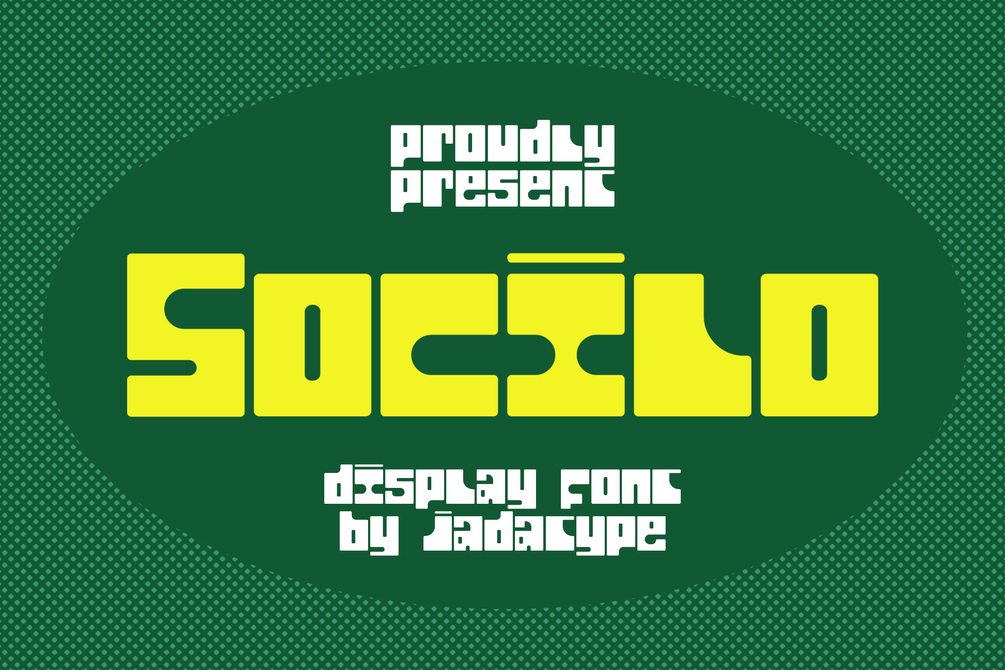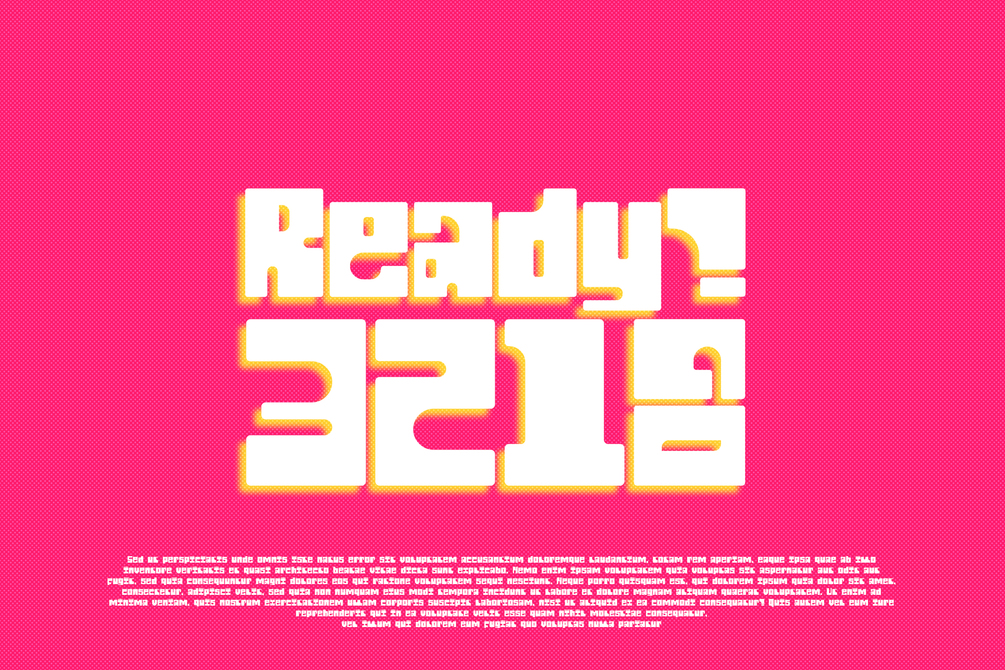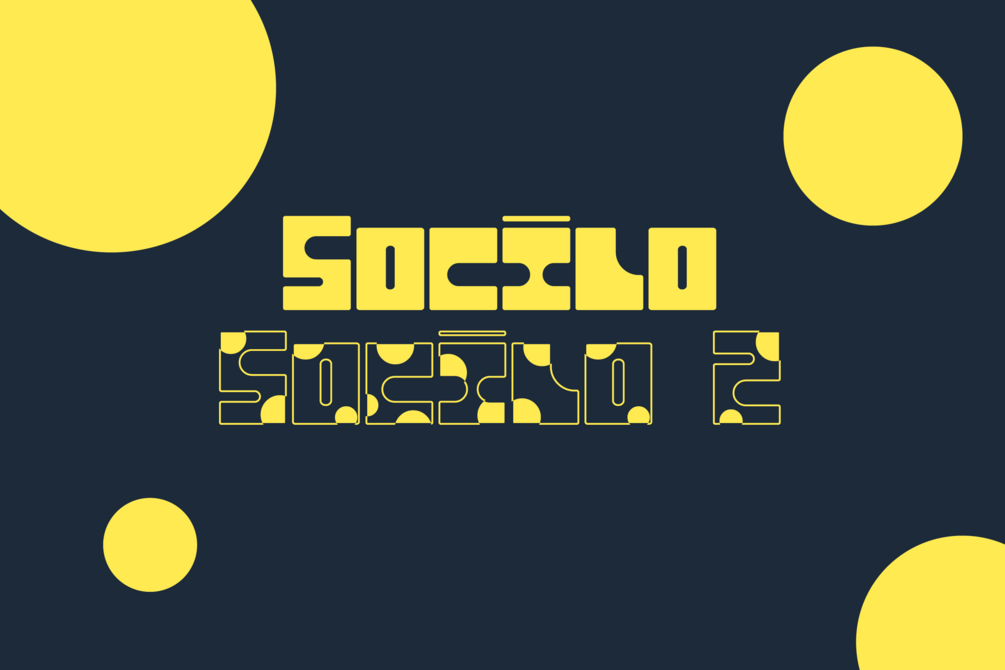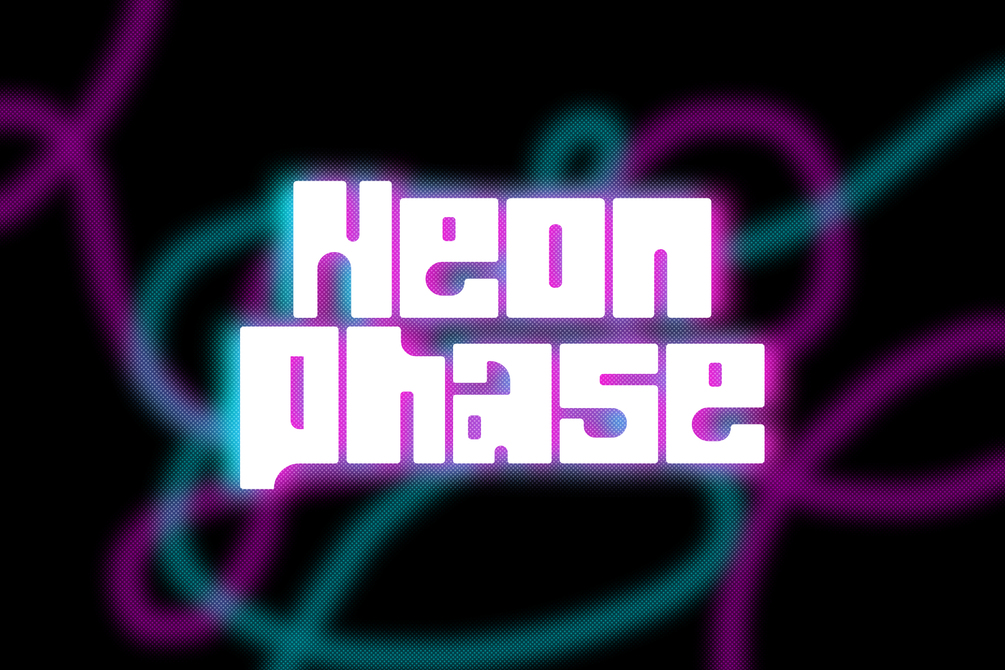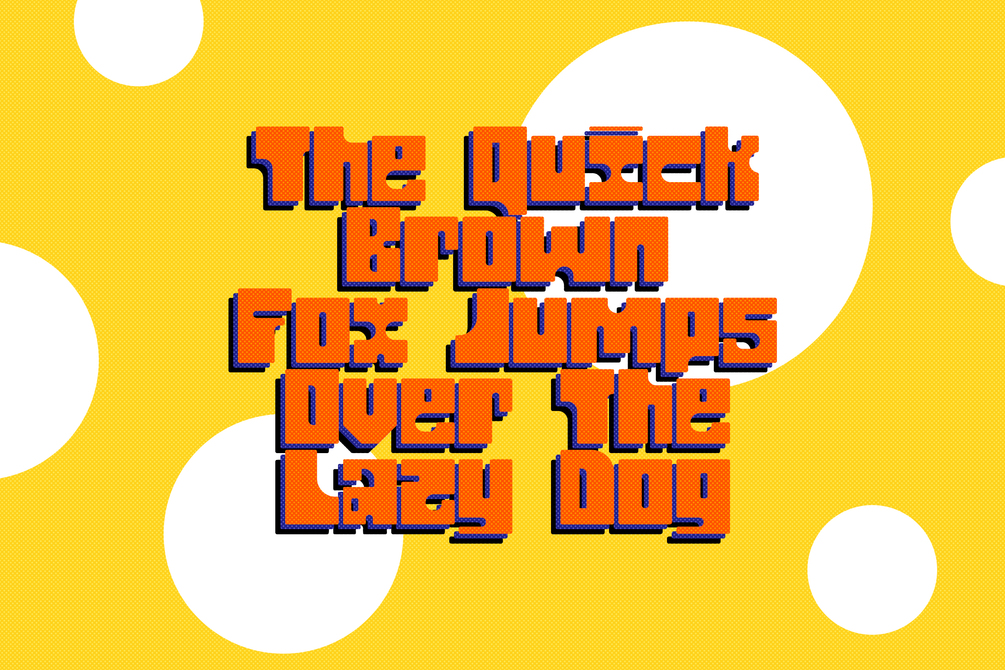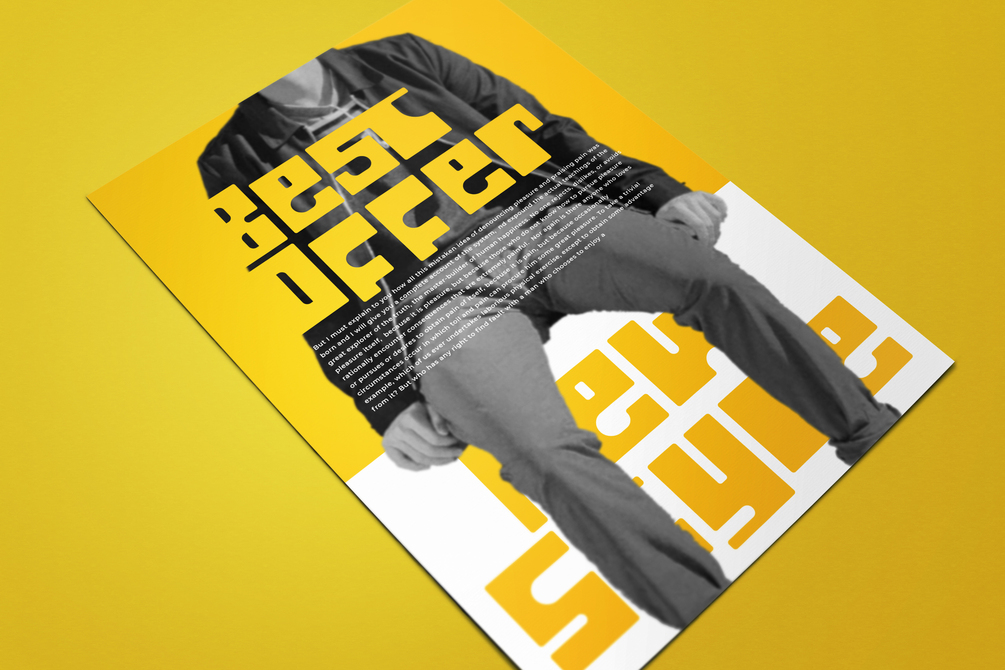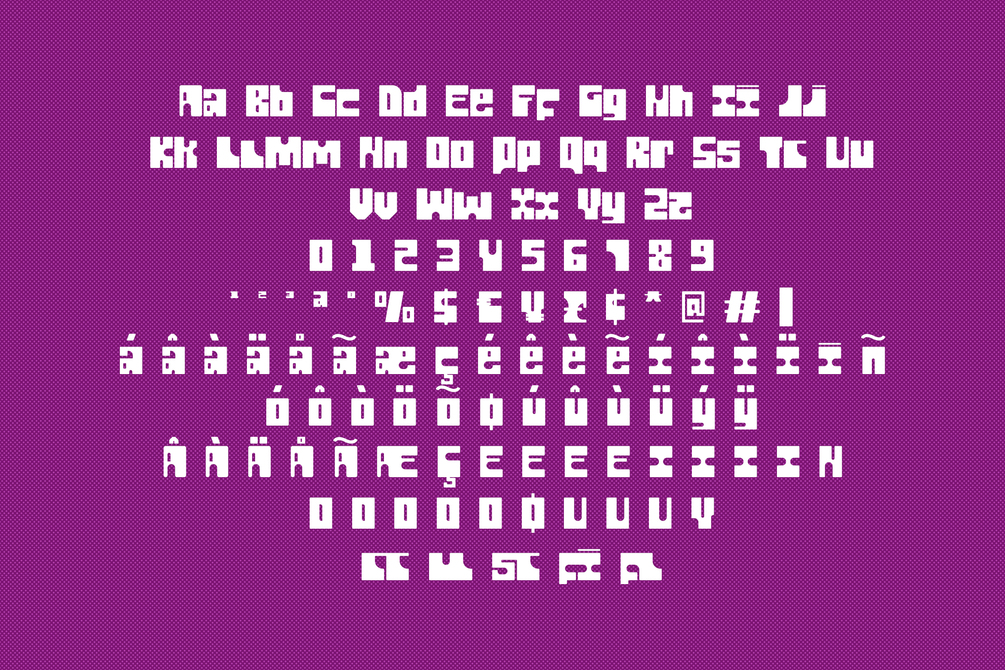
Socilo Font
Socilo is a display font that comes with a rounded square style. suitable for posters, tshirt, branding, social media, and so on. contains standard English letters, numbers, punctuation, and several accents that support multilingualism.